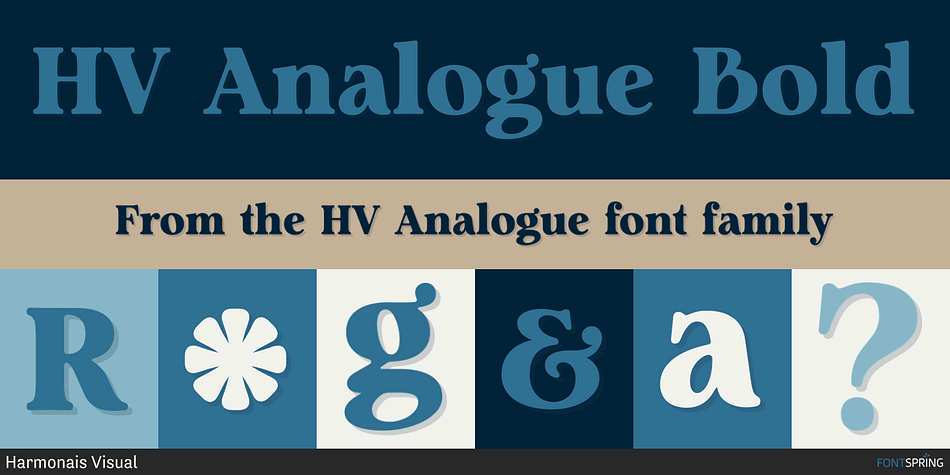
HV Analogue Bold
HV Analogue is a display serif and serif font family. This typeface has four styles and was published by Harmonais Visual.
Analogue is a retro serif with a humanist touch.  With its good readability, Analogue is perfect for both displays as well as body text.
Inspired by all the retro aesthetics making a comeback,  Analogue is perfectly suitable for creating nostalgic yet still elegant designs such as logos, packaging, editorial, and more.